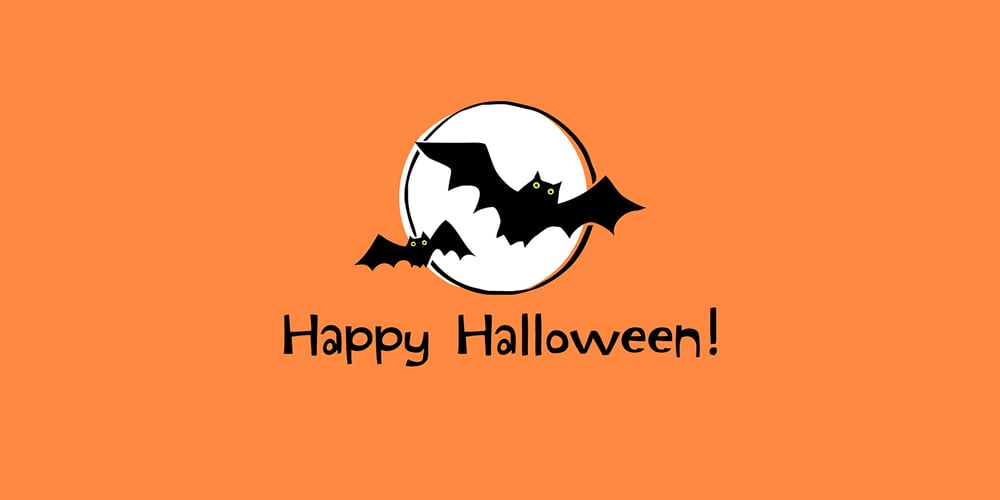
Eeeek Images
Eeeek Images font
Eeeek Images Font Family was designed by Amy Dietrich and published by Atlantic Fonts. Eeeek Images contains 1 styles and family package options. Brew up some sweet Halloween fun with Eeeek Images, a Halloween picture font featuring 60 Amy Dietrich illustrations. From curious crows to cascading candy, Dracula to darling bats – Eeeek Images is MONSTEROUSLY fun… DARE NOT pass it up! Posters feature various fonts by Atlantic Fonts including Rowboat, Mountain Goat, Farmstand, Trailmap, and Judlebug.